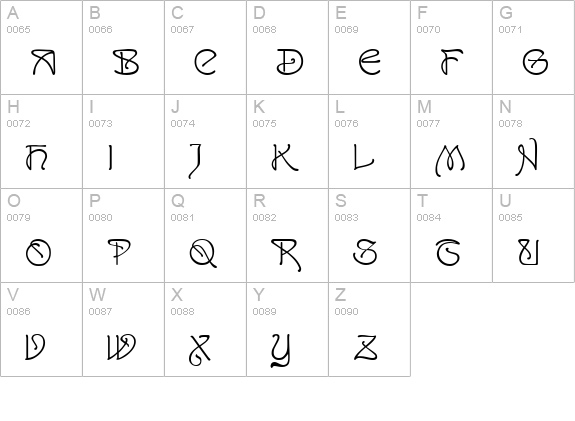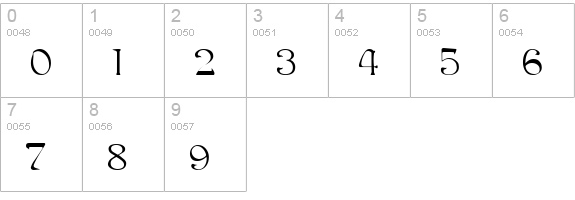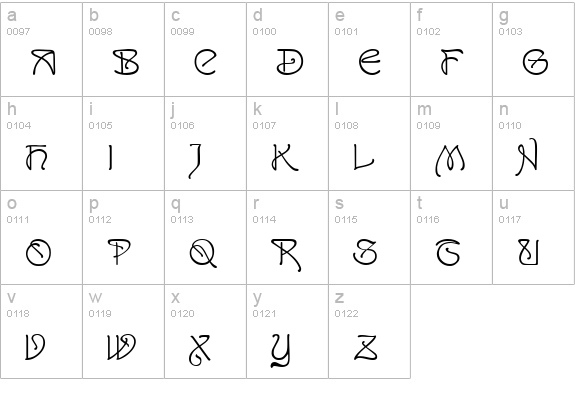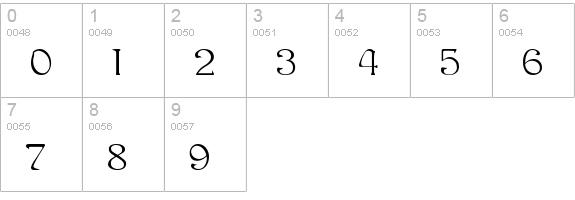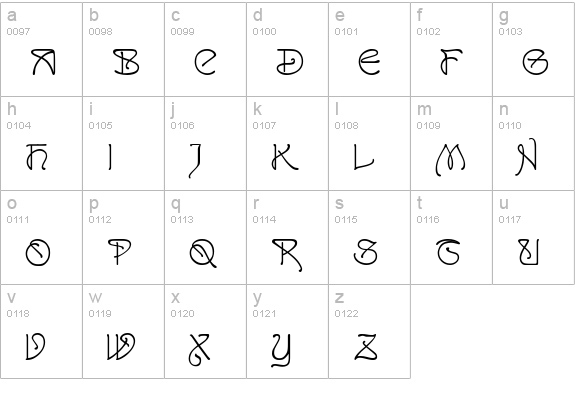
San Remo Font Details
San Remo is a stunning and versatile font that exudes elegance and sophistication. With its clean lines and timeless appeal, this font is perfect for a wide range of design projects. Whether you're creating invitations, logos, or branding materials, San Remo will add a touch of class to your work. What sets San Remo apart is not just its beauty, but also its accessibility. This font is completely free to use, making it a fantastic choice for both personal and commercial projects. No need to worry about breaking the bank or navigating complicated licensing agreements - San Remo is yours to use and enjoy. Downloading San Remo is a breeze, as it is freely available at FontsMarket.com. Simply head over to the website, locate the font, and click the download button. Within moments, you'll have this fabulous font at your disposal, ready to elevate your designs to new heights. San Remo's versatility is evident in its numerous styles and weights. From regular to bold, italic to condensed, this font offers a variety of options to suit your creative needs. Whether you're aiming for a classic and traditional look or a more modern and contemporary vibe, San Remo has you covered. The legibility of San Remo is another standout feature. Each character is carefully crafted to ensure clarity and readability, even at smaller sizes. This makes it perfect for body text in print or digital formats, as well as headings and titles that need to grab attention. In summary, San Remo is a must-have font for designers and creatives looking to add a touch of elegance to their projects. Its beauty, versatility, and accessibility make it a standout choice, and with its free availability on FontsMarket.com, there's no reason not to add San Remo to your font collection today.